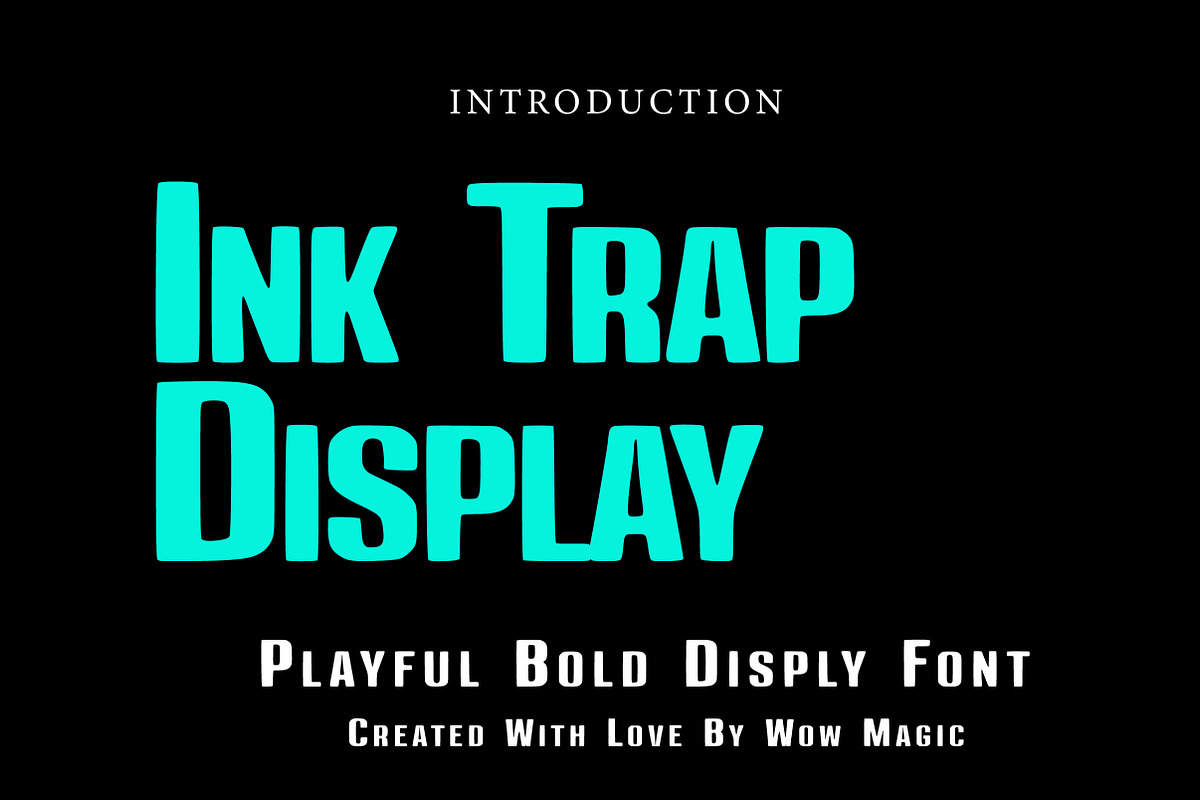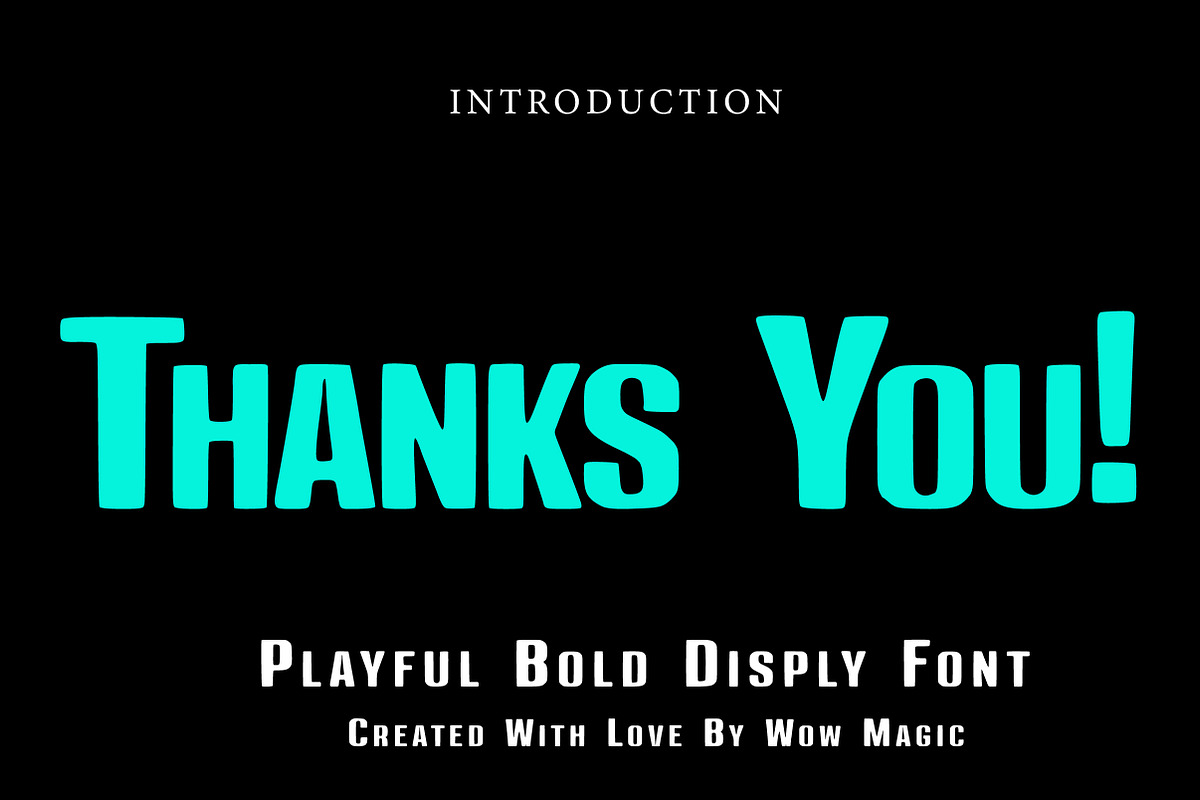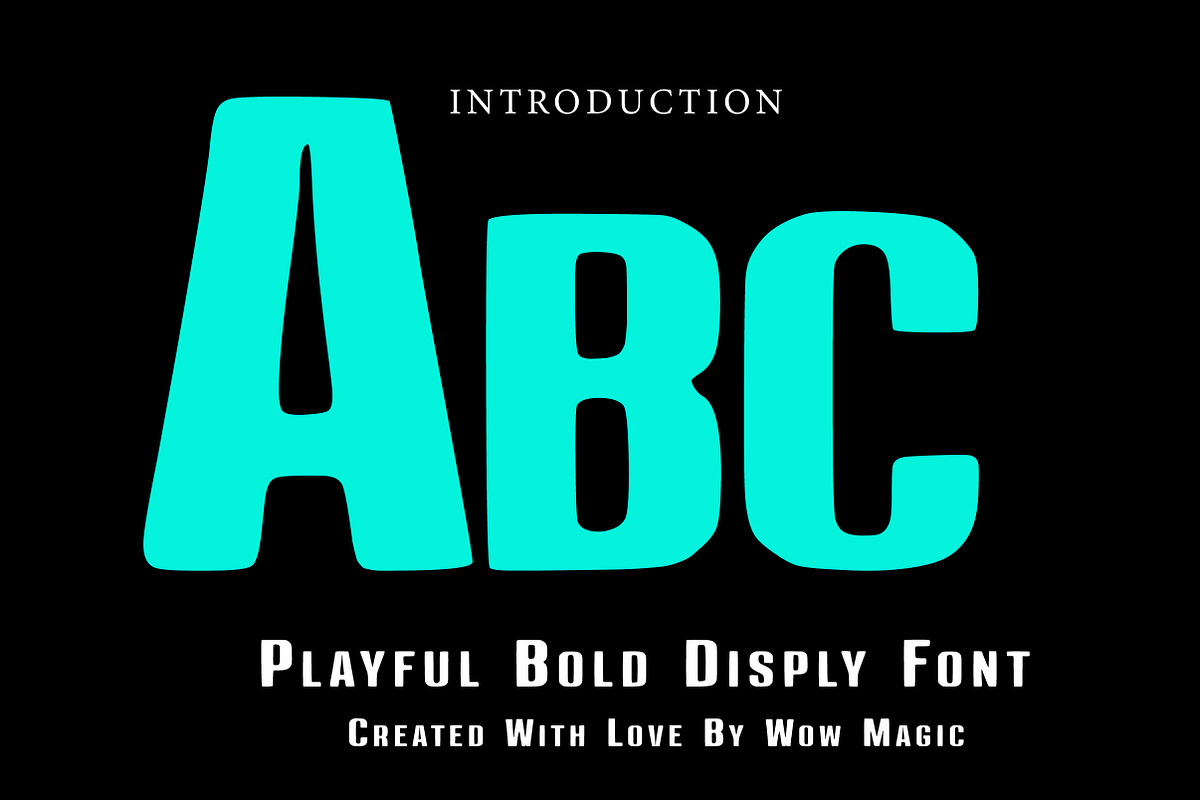
Ink Trap Display
Ink Trap Display is a bold and modern sans-serif display font inspired by contemporary editorial typography and precision ink trap detailing. Designed with sharp cuts and distinctive ink trap corners, this typeface delivers a strong visual impact while maintaining excellent readability at large sizes.
The exaggerated ink traps not only add character but also create a unique industrial and technical aesthetic. With its condensed structure and confident letterforms, Ink Trap Display is perfect for branding, headlines, posters, tech projects, logos, packaging, and bold editorial layouts.
This font balances functionality with style — making it ideal for designers who want a clean yet distinctive display typeface with a modern edge.
Branding & Identity
Editorial Headlines
Posters & Flyers
Tech Branding
Magazine Covers
Modern Advertising